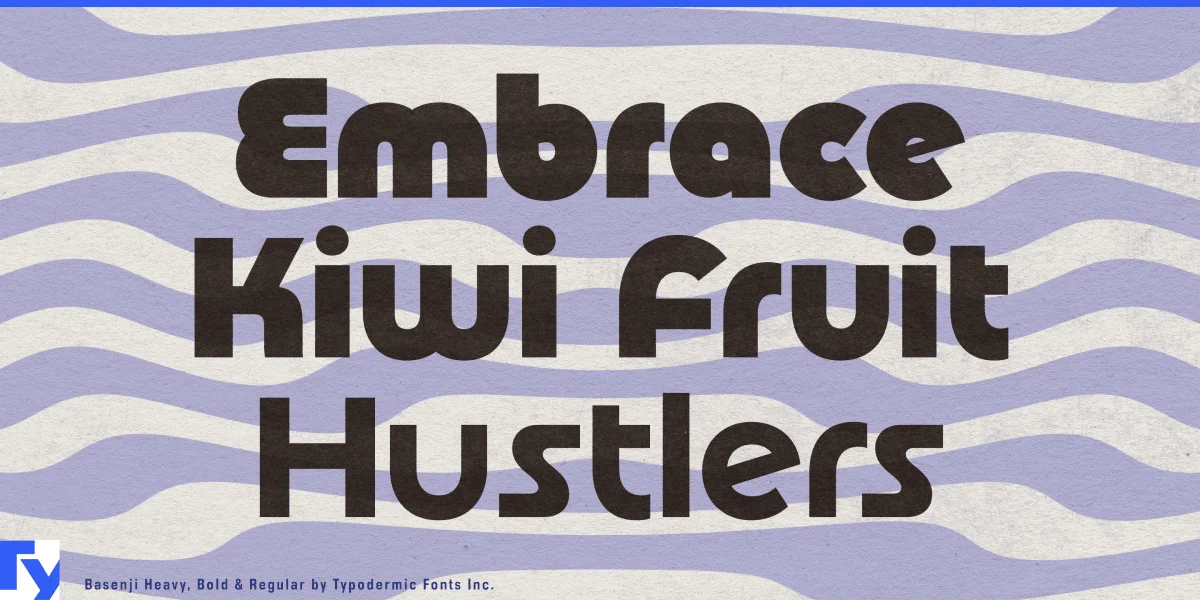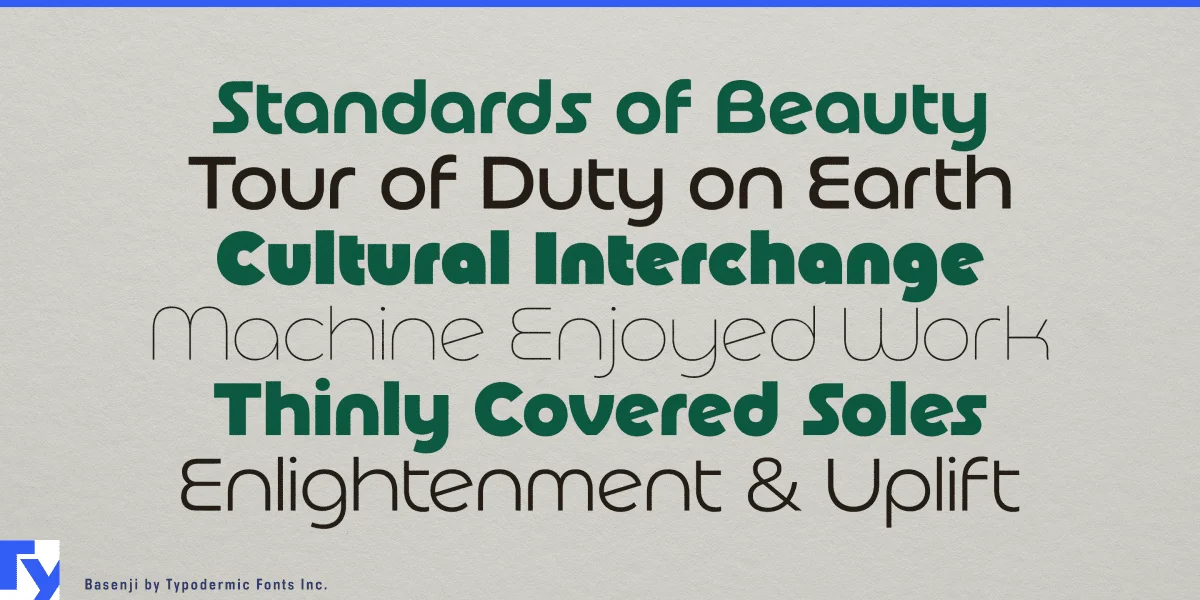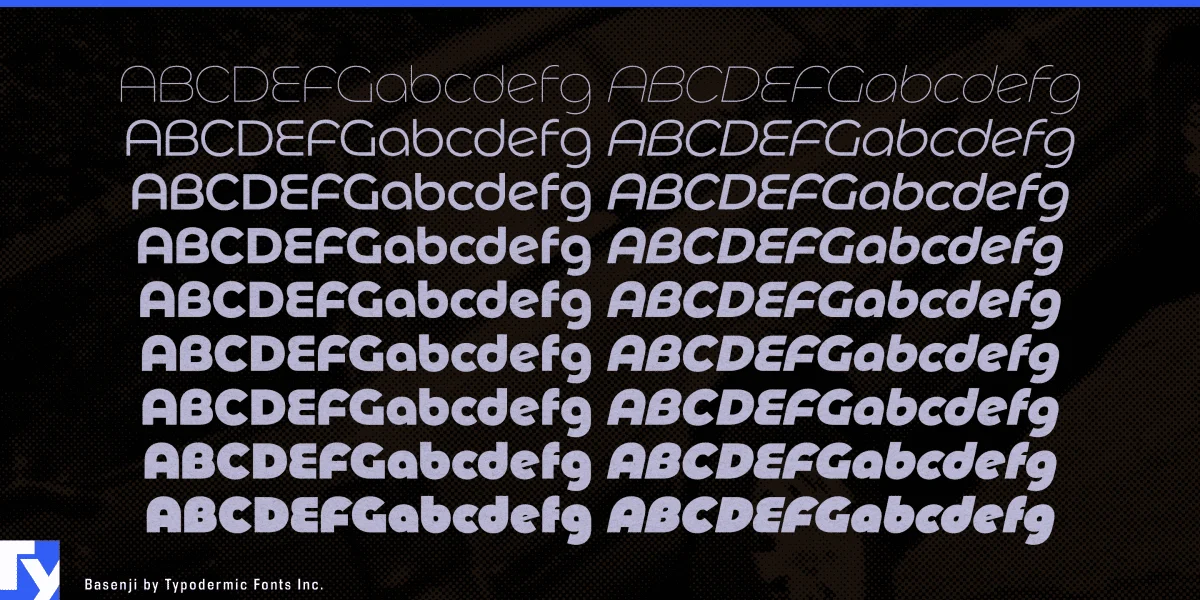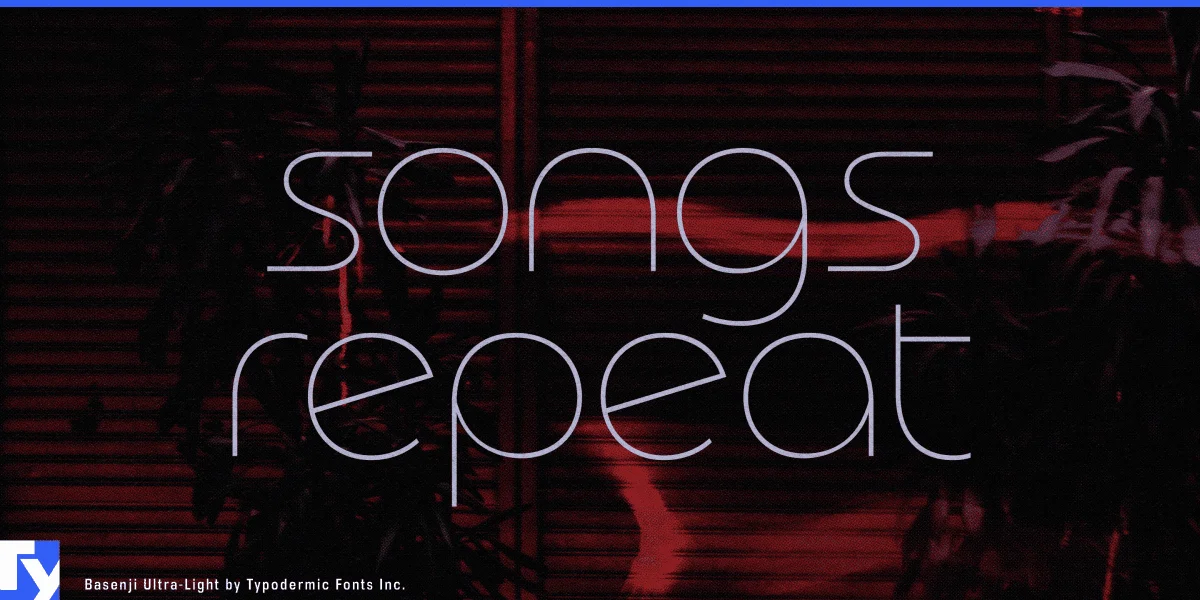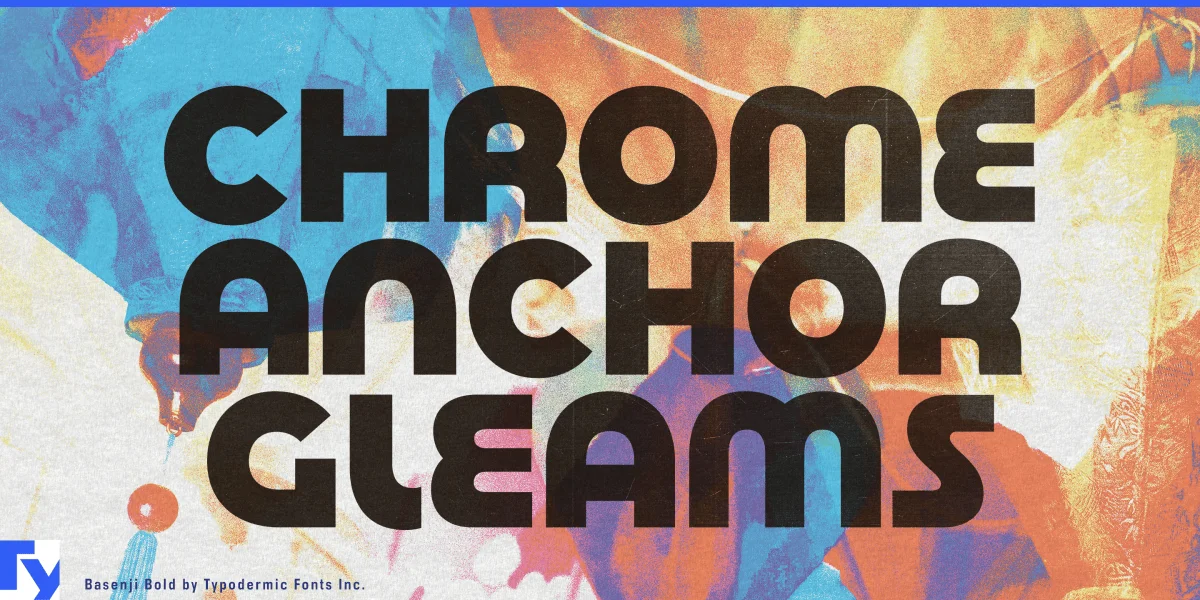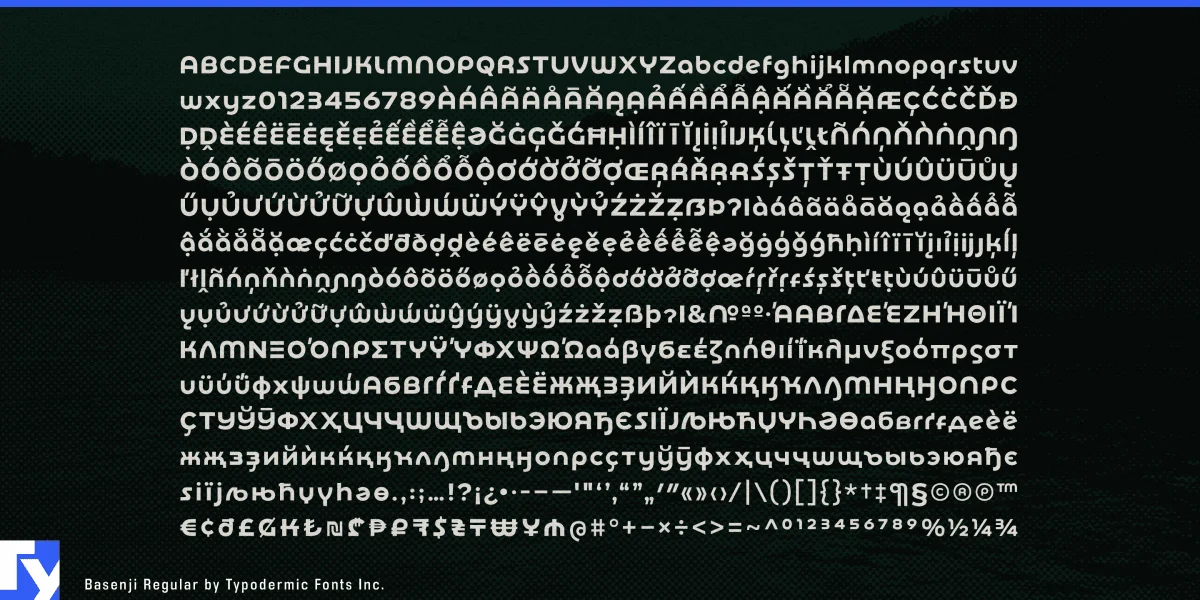
Basenji draws on the playful geometry of 1970s classics like Rondo, Pump, Bauhaus, and Blippo, reimagined with the precision and flexibility modern designers expect. Its rounded forms shift easily from soft, friendly text to bold sculptural headlines, making it equally comfortable in branding, editorial design, or large-scale signage. Rooted in retro charm but refined for contemporary use, Basenji brings the warmth of the past into today’s design workflows.